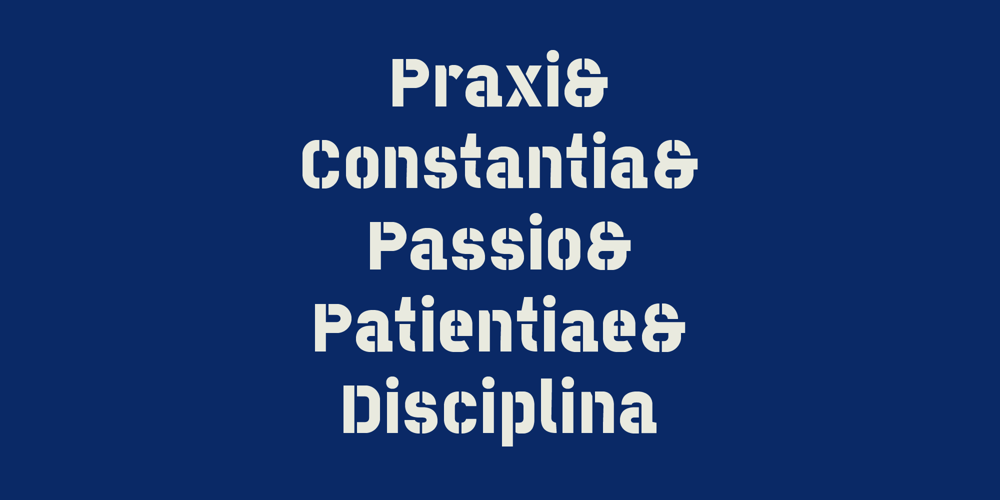
OTC Eugen Font Family was designed by Andrei Ograda and published by Ograda Type Company SRL. OTC Eugen contains 2 styles and family package options. OTC Eugen is a geometric grotesque with industrial socialist aspect. It is a somewhat brute interpretation of the graphic environment and old era typography found around cities or in the country side in Romania.It works best as a display typeface used in big titles, in branding projects for clear wordmarks, or around the house where you can just go wild and make your own mark with the stencil version.Two styles: Display & Stencil.Various stylistic and contextual alternates, and a considerable amount of ligatures, arrows and more.Language support for: Basic Latin, Western, Central & Eastern European languages.